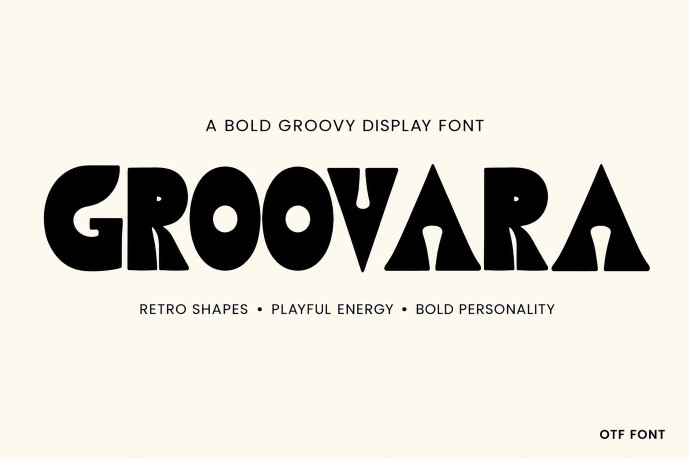
Black Barricade Font
Groovara is a bold groovy display font inspired by retro aesthetics, playful curves, and chunky letterforms. Designed to make an instant visual impact, it features distinctive geometric shapes and unique cutout details that give every headline a fun, energetic, and memorable personality.
Whether you’re creating eye-catching logos, vintage-inspired branding, product packaging, music posters, apparel designs, or social media graphics, Groovara delivers a strong visual presence while maintaining excellent readability at large sizes.